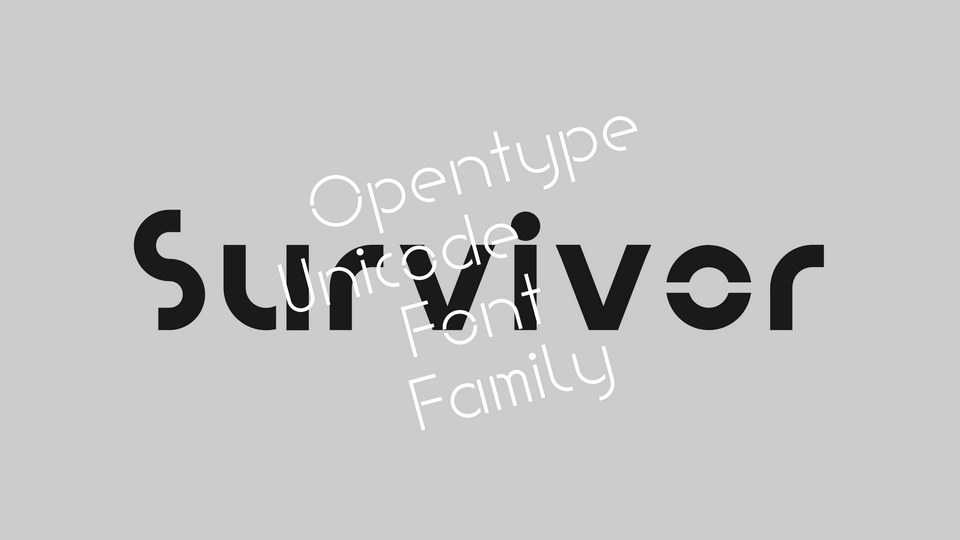
Download PVF Survivor typeface, a minimal, geometric, stencil sans serif font family. PVF Survivor fonts will be useful in developing a brand, creating posters and other graphic products.
Designer: Petros Vasiadis